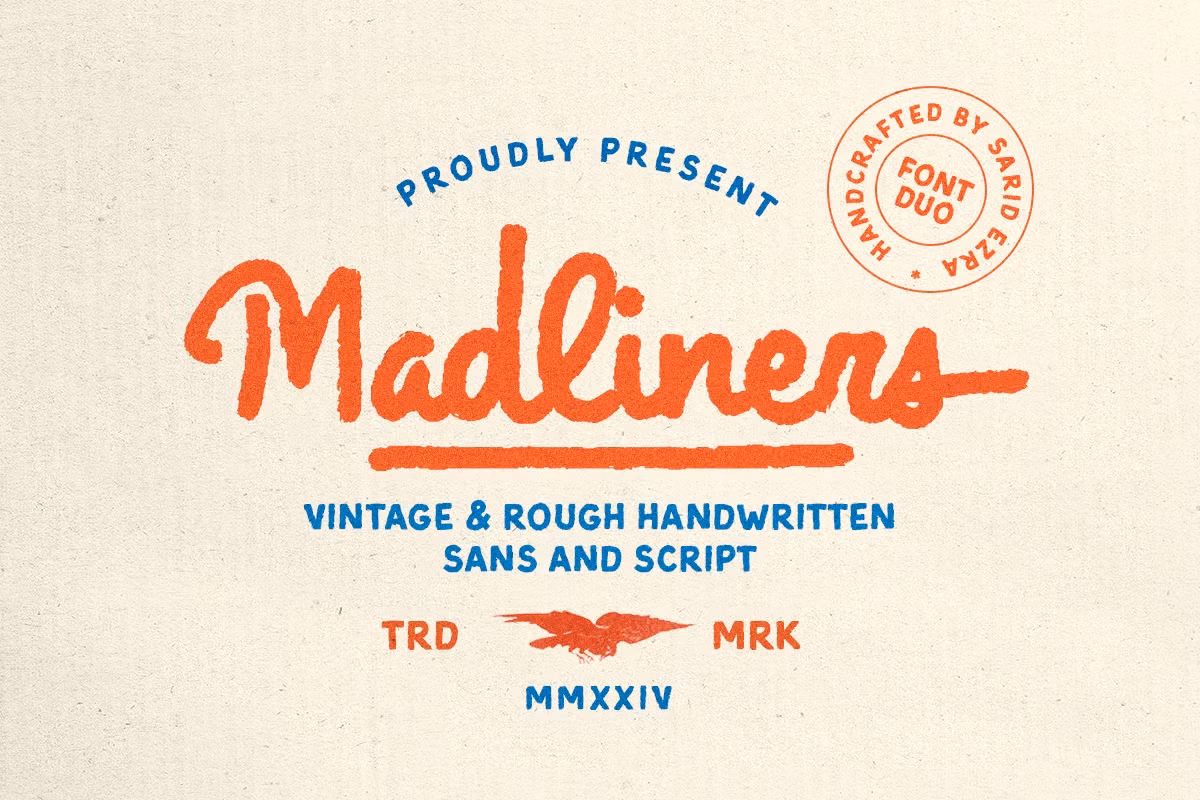
Madliners - Rough Font Duo Free Download
Make a bold and rugged statement with Madliners - Rough Font Duo Free Download. This dynamic font duo includes a rough, distressed sans serif and a bold, textured script, perfectly paired to create a unique, energetic style. Ideal for branding, posters, logos, and any design that needs a raw, creative edge.
The Sans Serif font offers a strong, clean look with a weathered touch, while the Script font adds flair with its textured, handwritten strokes. Together, they provide the perfect balance of boldness and personality. The duo includes uppercase and lowercase letters, numerals, punctuation, and multilingual support, making it perfect for testing a variety of designs.